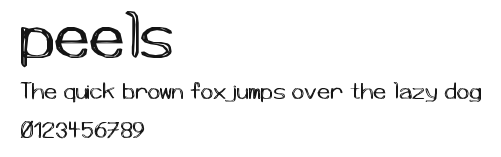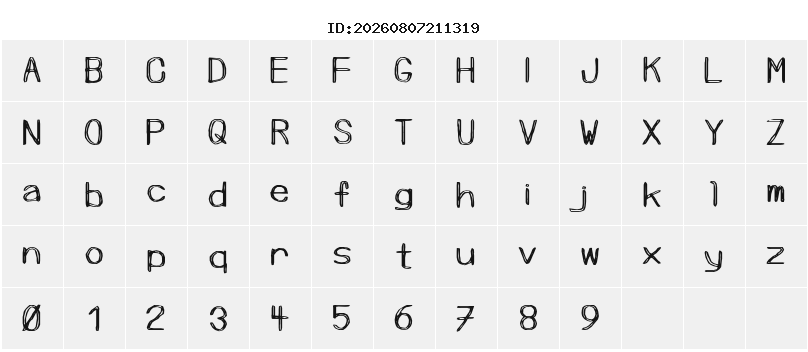
peels Preview
• Font Name: peels
• Font Style: slip
• Font ID: peels
• Full Font Name: peels
• PostScript Name: peels
• Copyright: peels is a *dibujado* font finished (for now) on 2003-06-05
About peels.ttf
peels.ttf is a modern, elegant sans-serif font designed for ultimate readability and visual harmony. Perfect for branding, headlines, web design, and print materials.